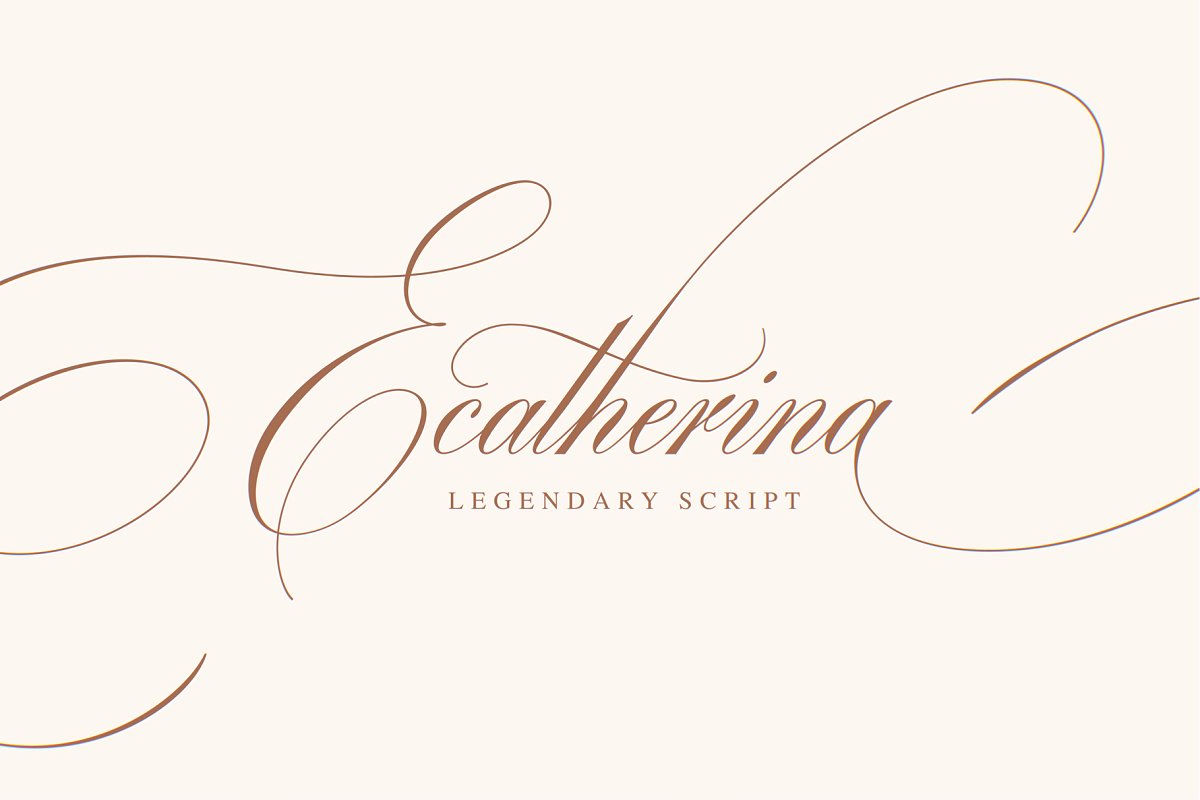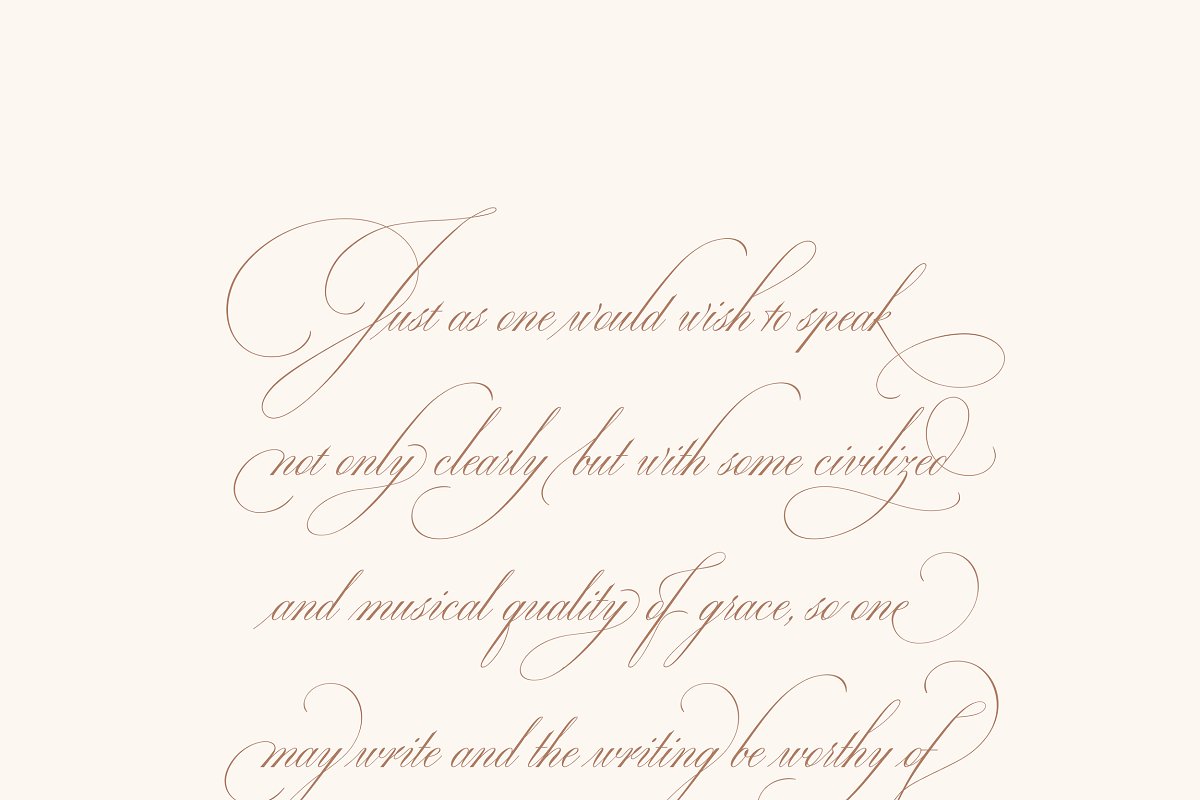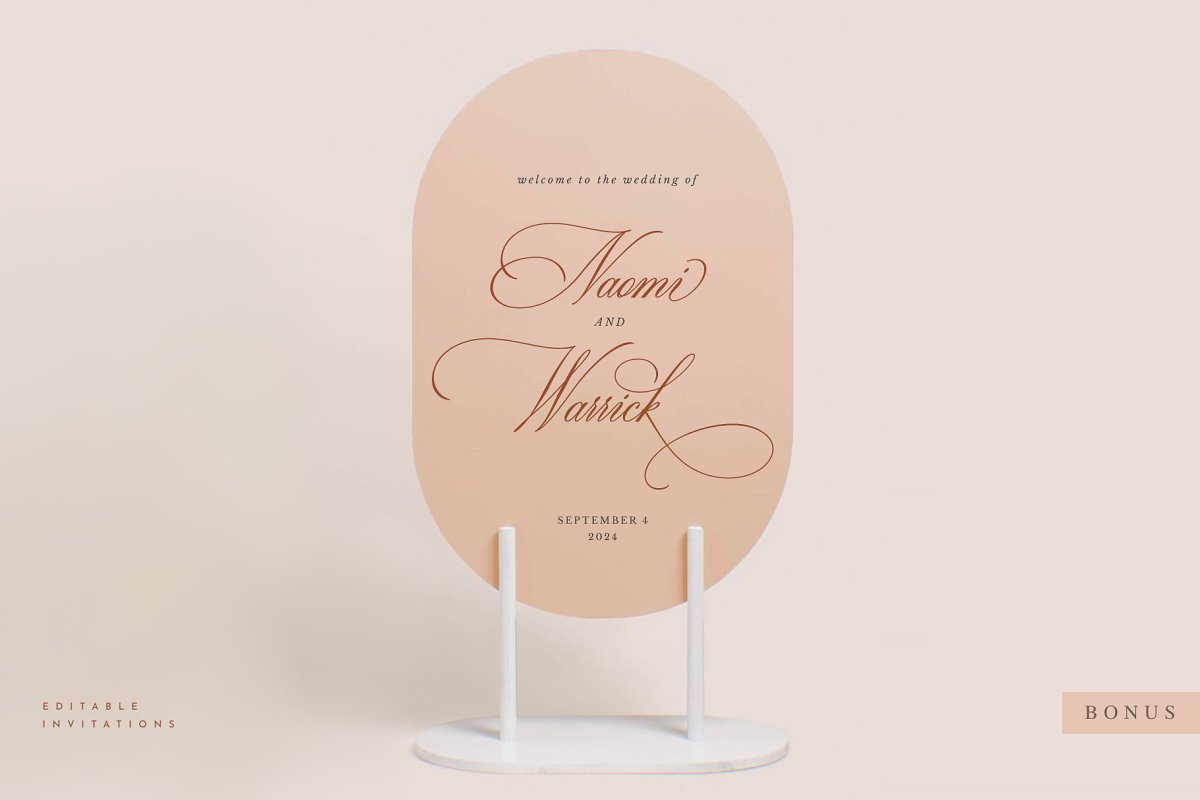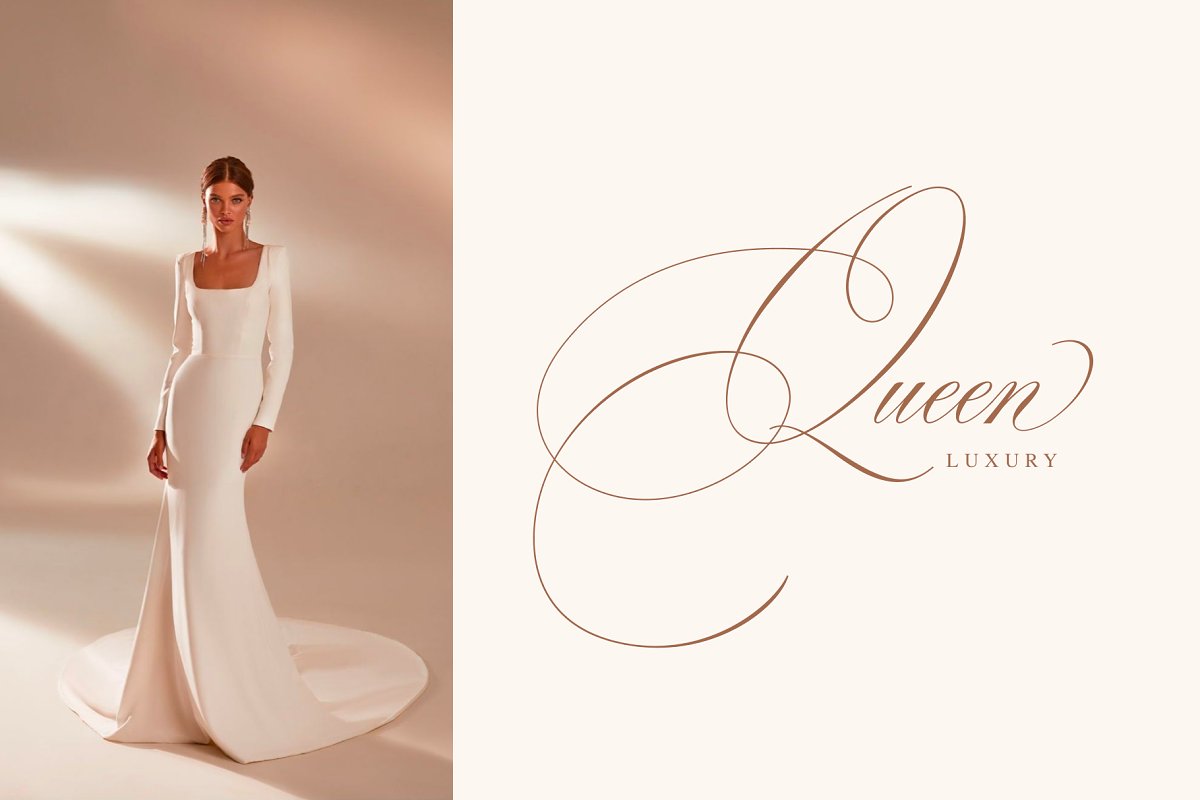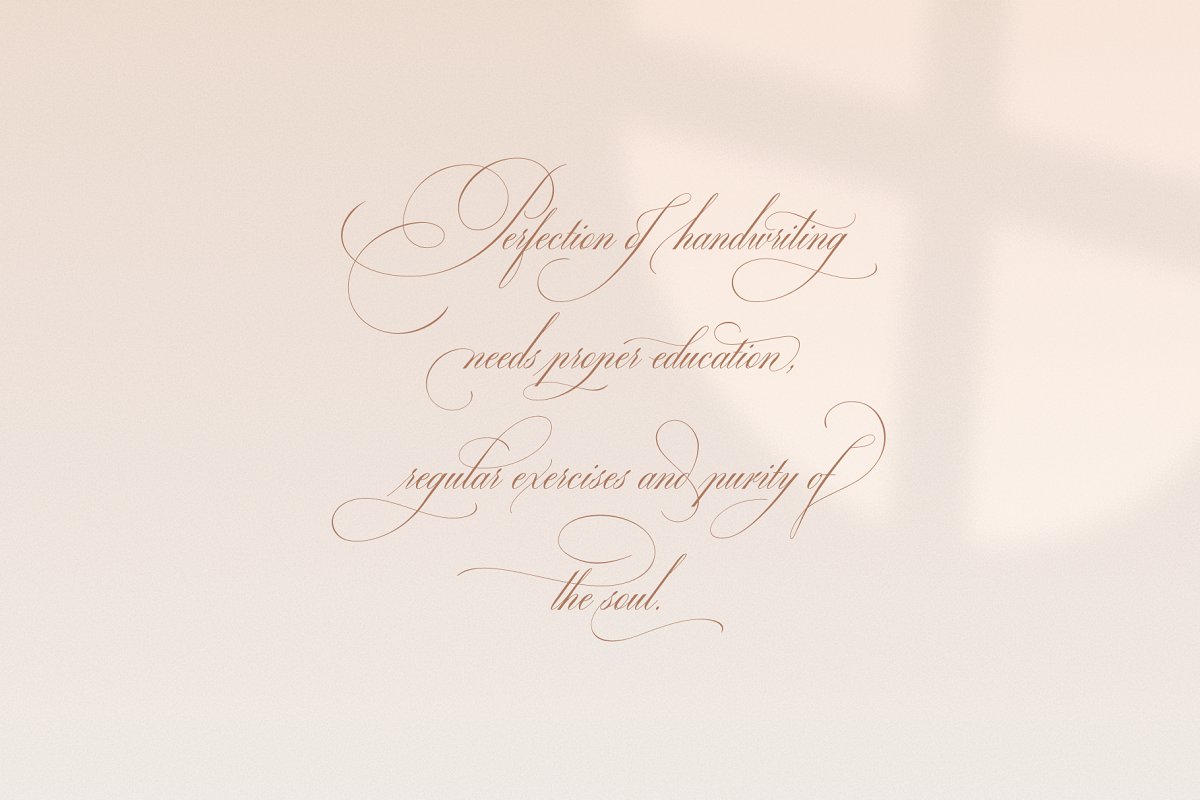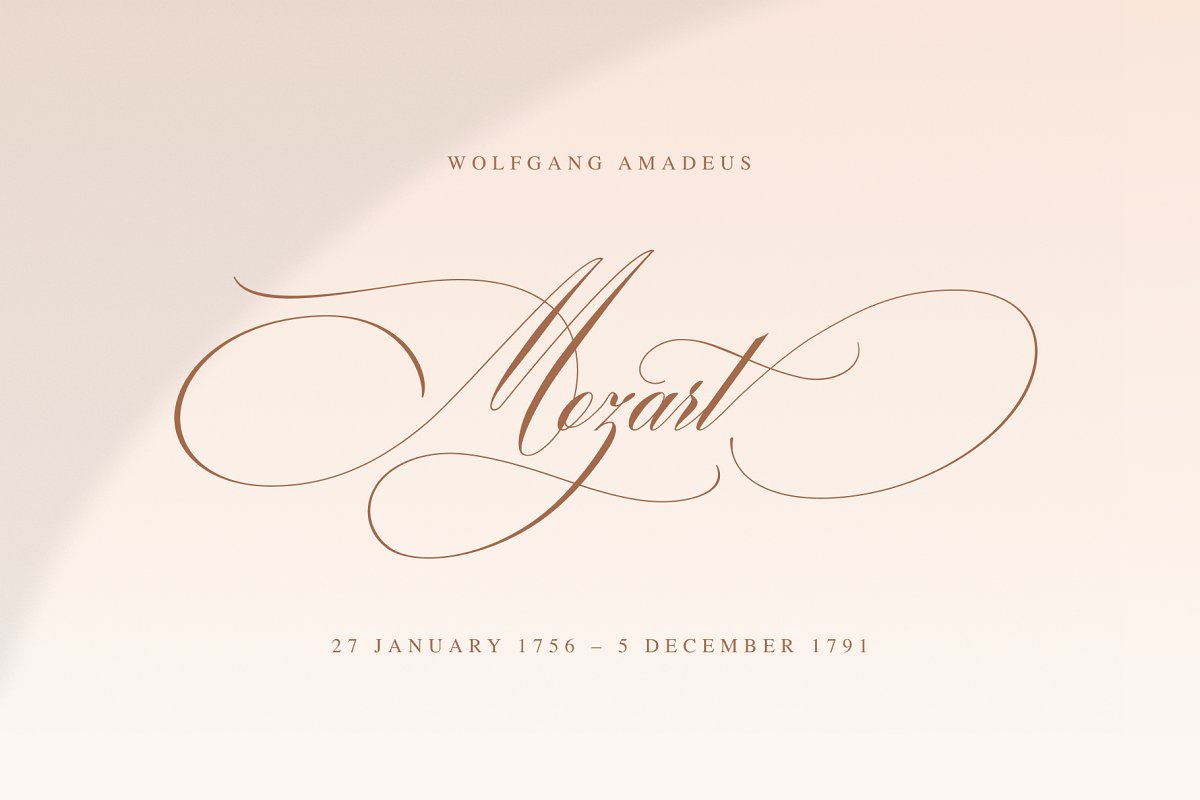
About the Ecatherina legendary script
So just type E1, E2, E3 etc and find your favourite one!I found this method the most useful when you need to experiment with design very fast, All characters are available through Glyph panel as well, even more each of the alternate letter has it’s own unicode (PUA) so you can copy/paste from Apple Font Book or Windows Character Map
Total amount of glyphs 1436, Compatible with SILHOUETTE & CRICUT DESIGN SPACEWHAT IS INCLUDEDBP-Ecatherina OTF & TTF It goes with 5 weights: Thin, Medium, Regular, Bold, UltraBold;BP-Ecatherina-Ex1 The only difference between previous font is that thin line is a bit thicker;BP-Ecatherina-Ex2 Even more thicker line